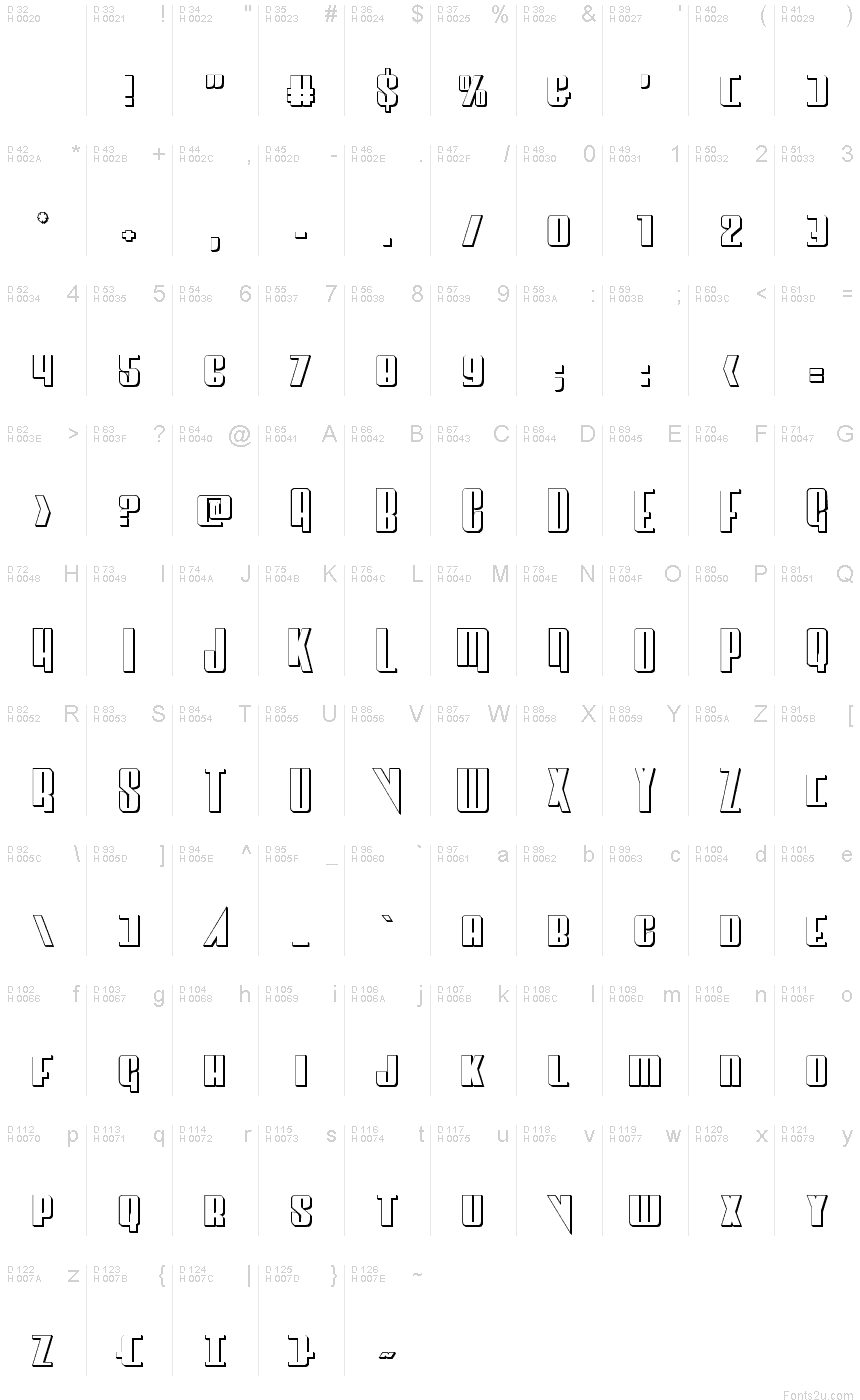
Vindicator 3D, designed in 2012 by Iconian Fonts, is a free retro-futuristic display font with an assertive dimensional build. Its tall, tightly fitted letters combine broad vertical strokes, clipped corners, and an offset dark edge that makes the forms resemble cut metal signage.
It is strongest on arcade game title cards, where the compressed proportions and hard-edged depth evoke coin-op cabinet graphics. The same machine-age styling also suits science-fiction posters and motorsport merchandise, especially projects drawing on 1980s action entertainment.